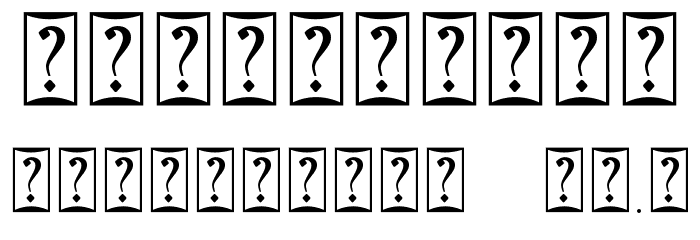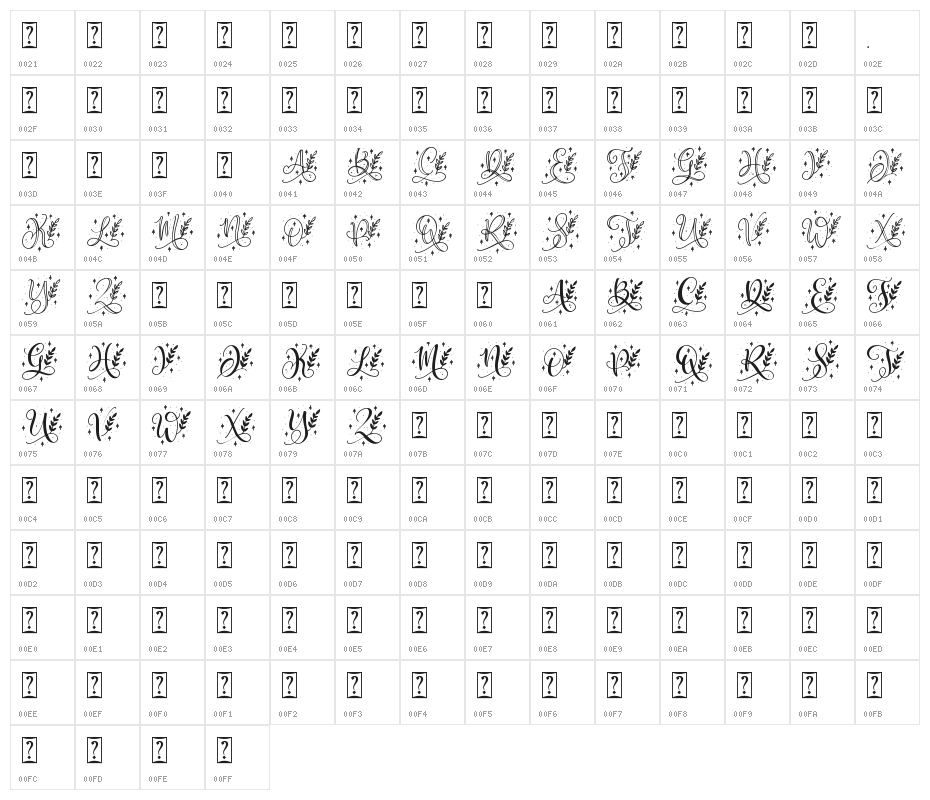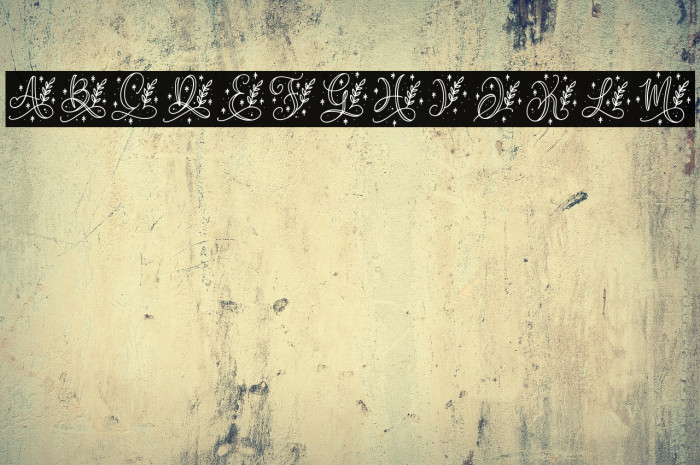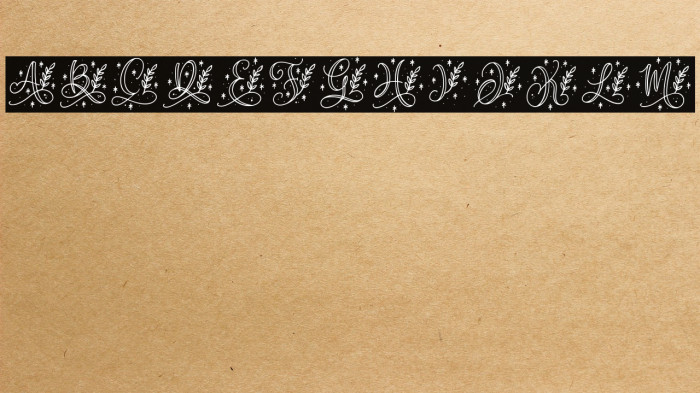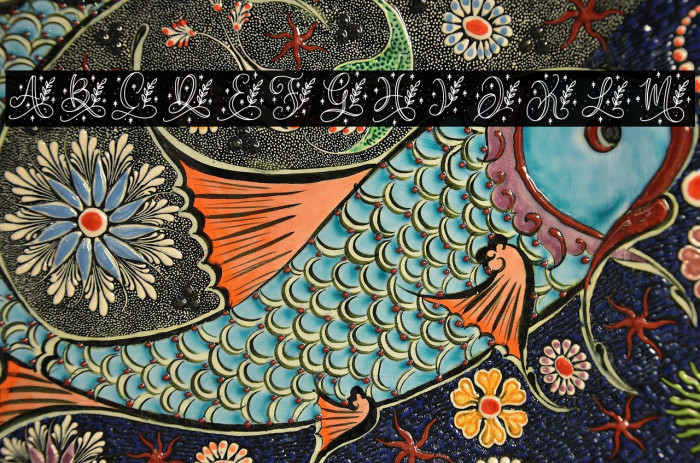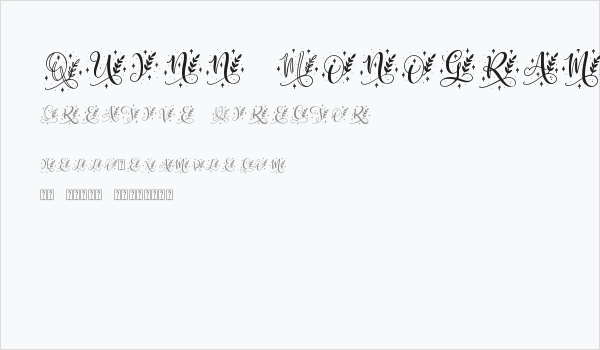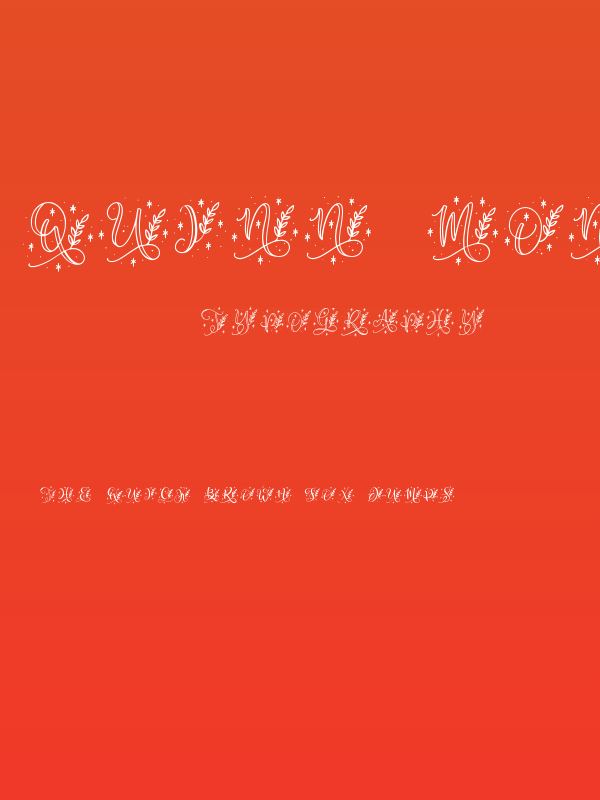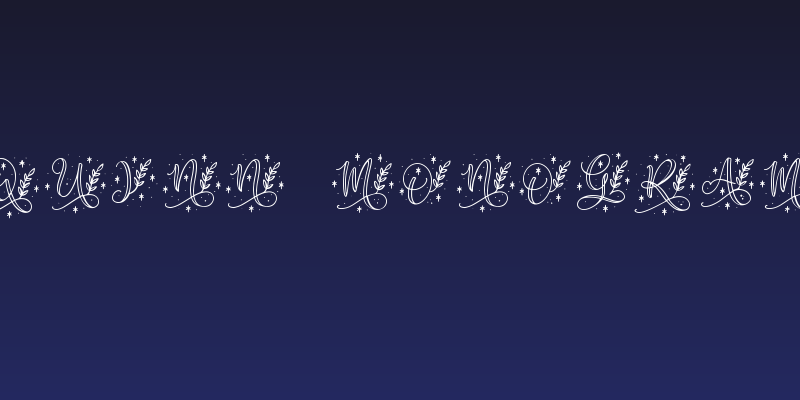
Quinn Monogram Font
Quinn Monogram Description
This font is a highly decorative and ornate typeface, characterized by its intricate floral and vine embellishments that intertwine with each letter. Each character is adorned with delicate leaves and swirling lines, creating an elegant and sophisticated appearance. The design is reminiscent of vintage monograms, often used in formal invitations or luxury branding. The uppercase letters are particularly elaborate, with each one featuring unique decorative elements that enhance its visual appeal. The lowercase letters maintain a similar style, ensuring consistency throughout the typeface. The overall aesthetic is both classic and artistic, making it suitable for projects that require a touch of elegance and refinement.